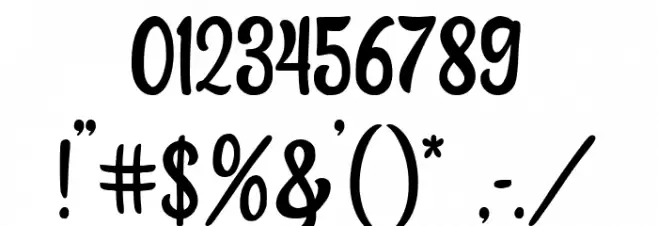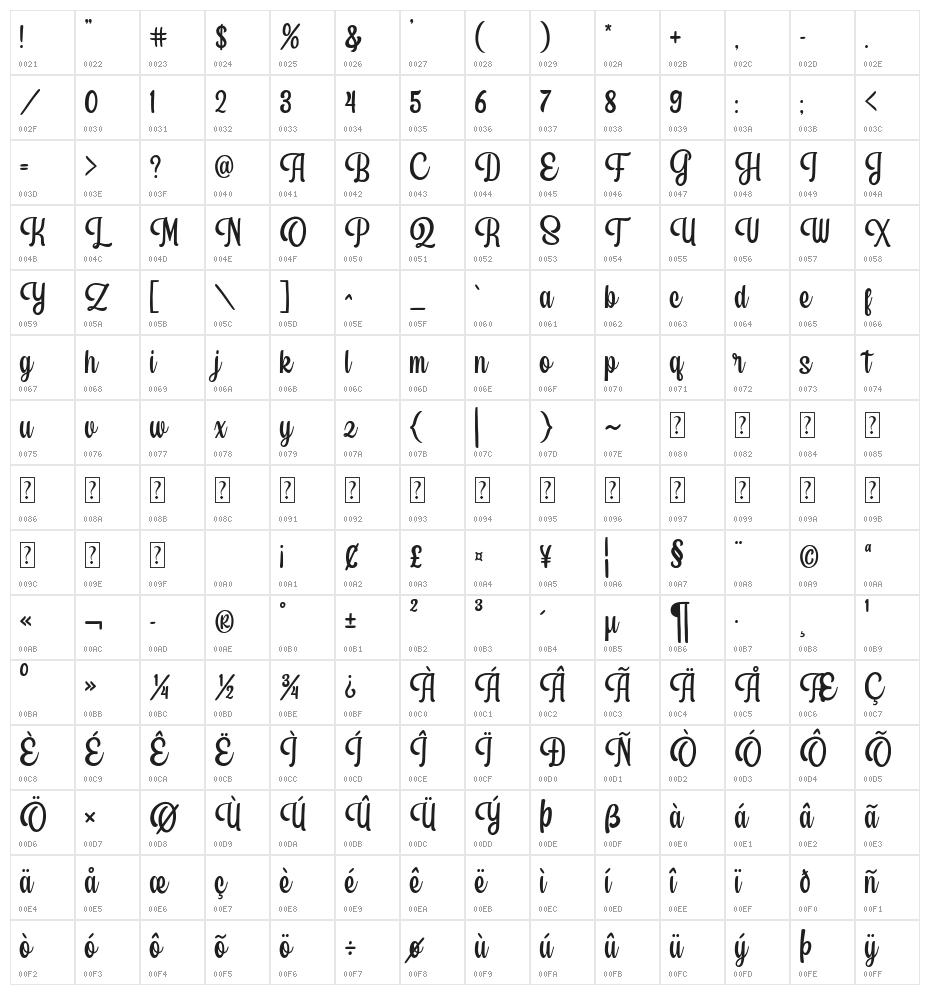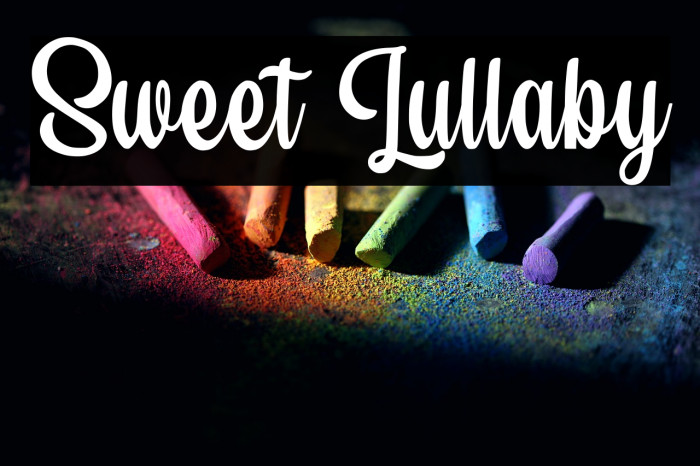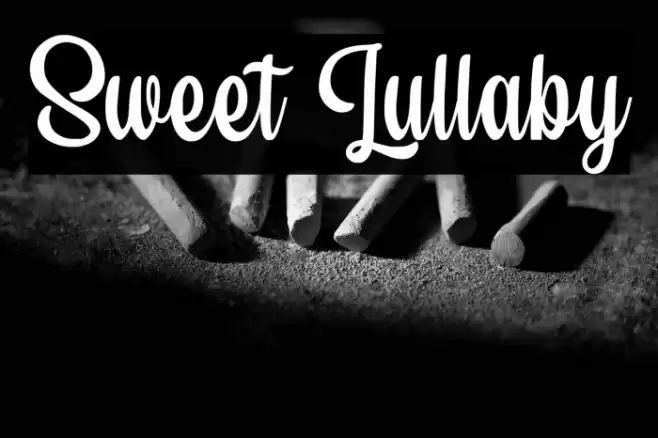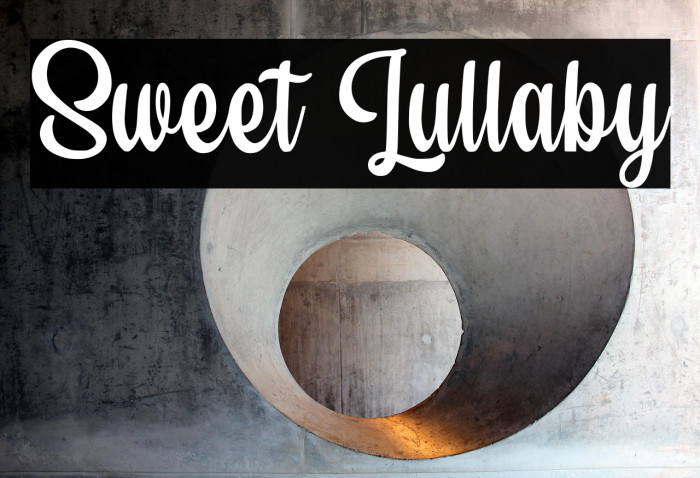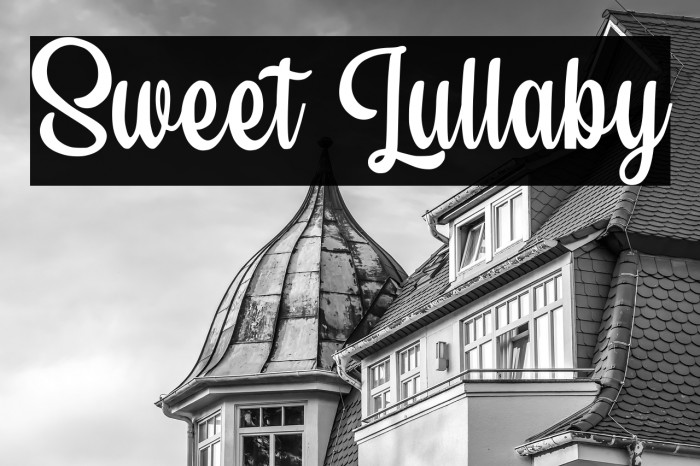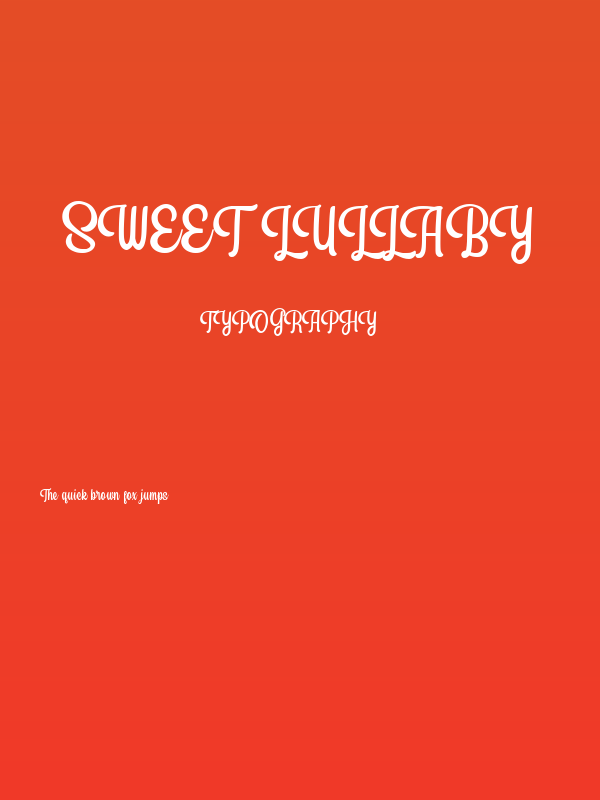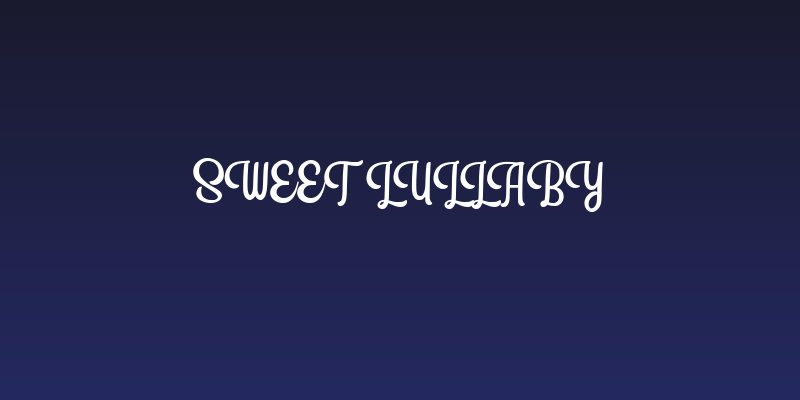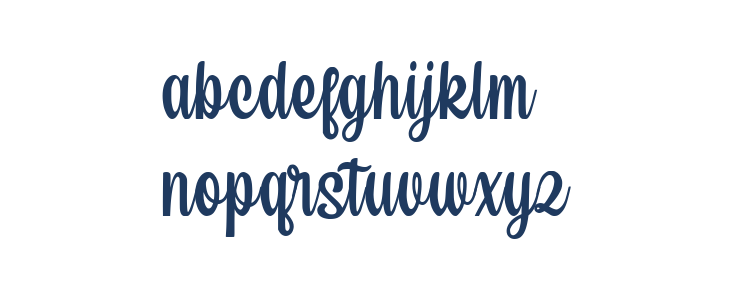
Sweet Lullaby Font
Sweet Lullaby Description
This font features a playful and whimsical script style, characterized by smooth, flowing lines and a handwritten appearance. The uppercase letters are elegantly curved, with a consistent stroke width that gives them a balanced and harmonious look. The lowercase letters maintain the same fluidity, with some letters having unique loops and swirls that add to the font's charm. The numerals are bold and clear, ensuring readability while maintaining the overall playful aesthetic. Special characters are well-integrated, matching the style of the alphabetic characters. This font exudes a friendly and approachable vibe, making it suitable for a variety of creative projects.